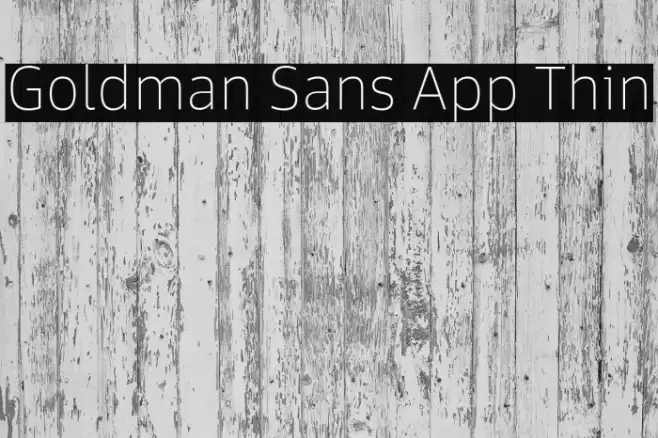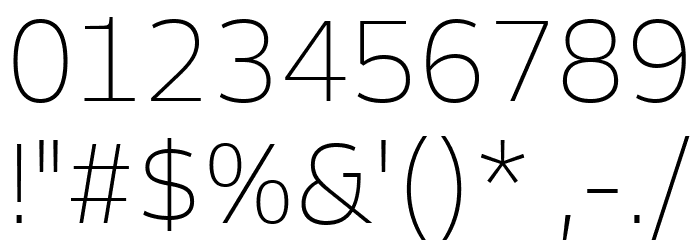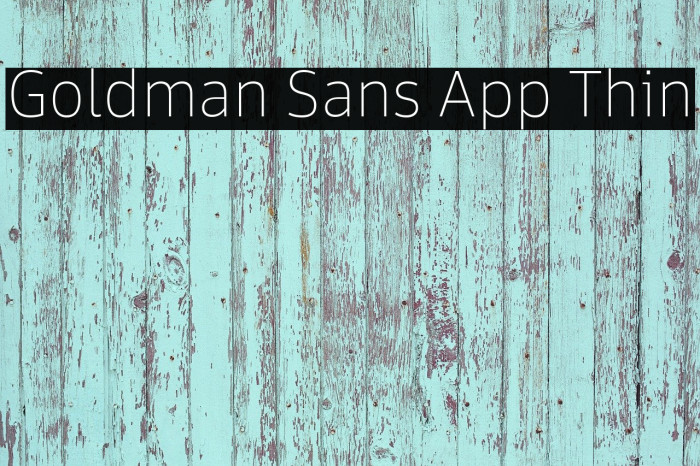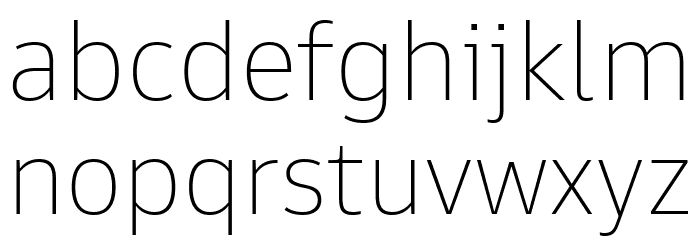
Goldman Sans App Thin Font
Goldman Sans App Thin Description
This font features a clean and modern sans-serif design with a thin weight, offering a sleek and minimalist appearance. The characters are evenly spaced with a normal width, providing excellent readability. The strokes are consistent and uniform, with low contrast, making it suitable for digital interfaces and print. The uppercase and lowercase letters maintain a harmonious balance, while the numerals and special characters are clearly defined, enhancing the font's versatility.
A modern, thin sans-serif font with low contrast and excellent readability from Uncategorized fonts.
- Proposed Projects: Ideal for digital interfaces, minimalist branding, corporate materials, and modern web design.